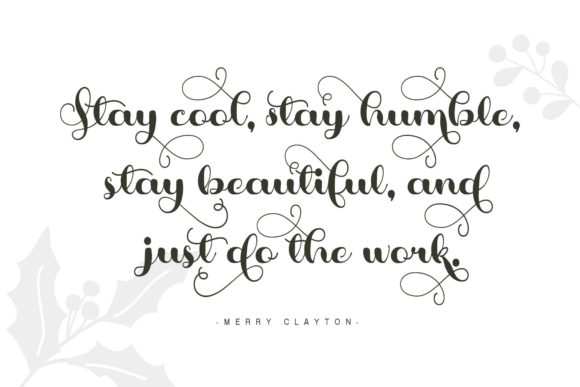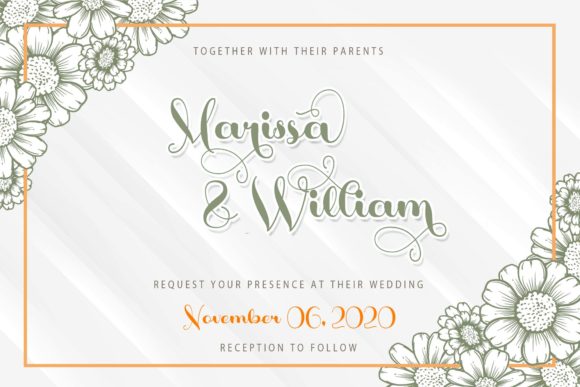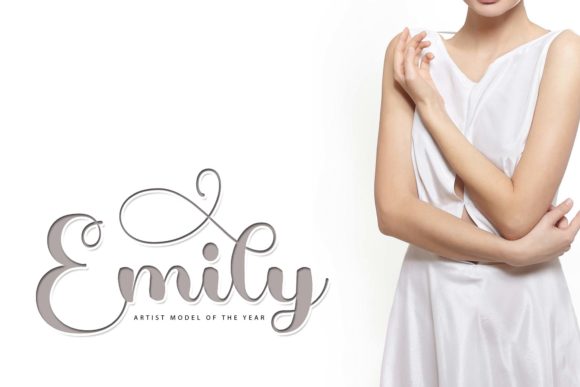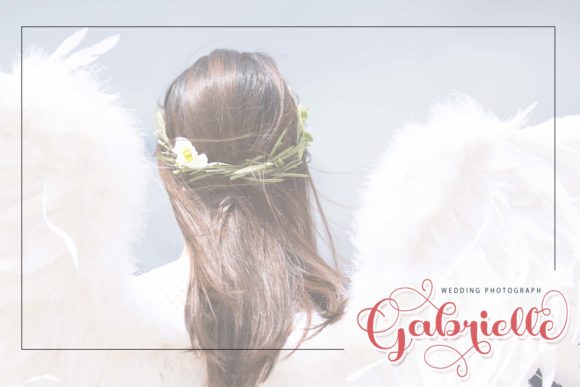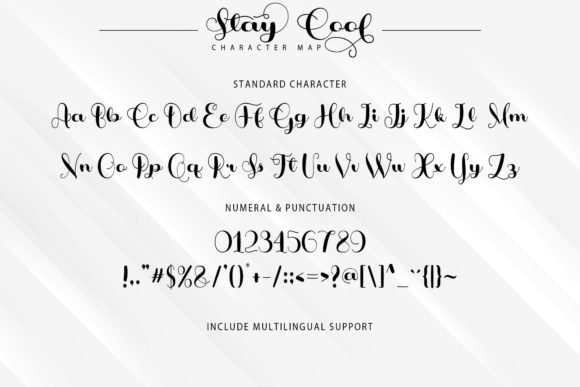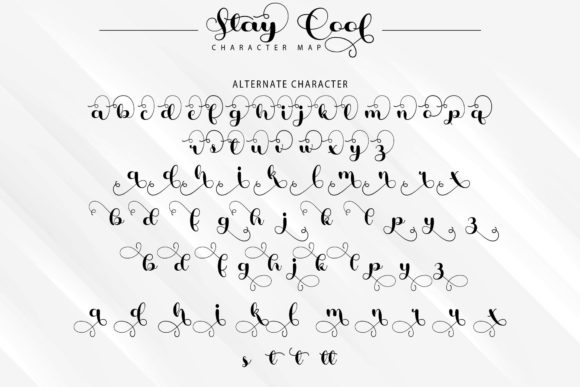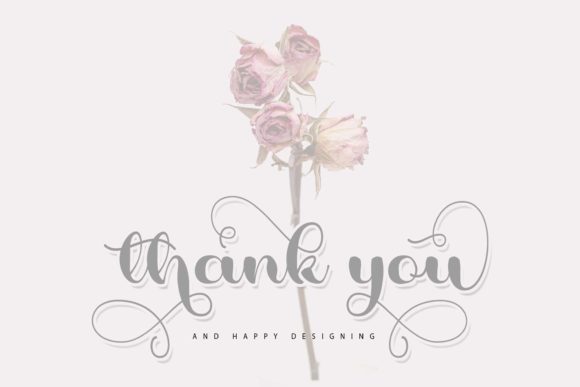
Stay Cool Font
About Stay Cool Font
Stay Cool is a beautiful, fresh, and elegant script font. It is ideal for holiday-themed greeting cards and for any crafting project that requires a romantic touch.